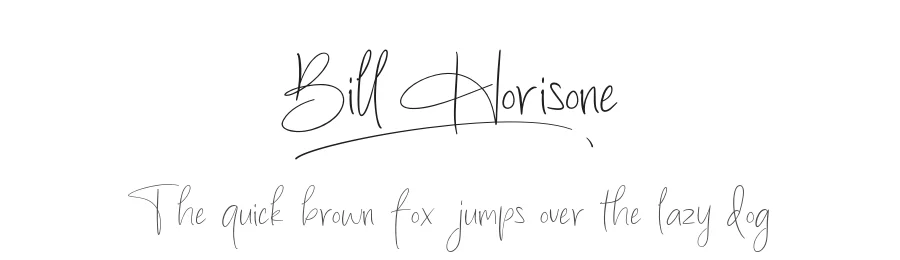
About Mulla Font
Mulla (Handwritten/Script) is a strong font that exudes beauty. Smooth and beautiful character but with amazing high artistic taste.This font is readable, catchy, and easy to use. This font is suitable for quotes, logo designs, magazines, business cards, and many other design projects.
Mulla Font is a script font that shines as a display or heading face. Pair it with a clean sans-serif or serif font for body text β the contrast creates a clear hierarchy while the two styles stay balanced and easy to read.